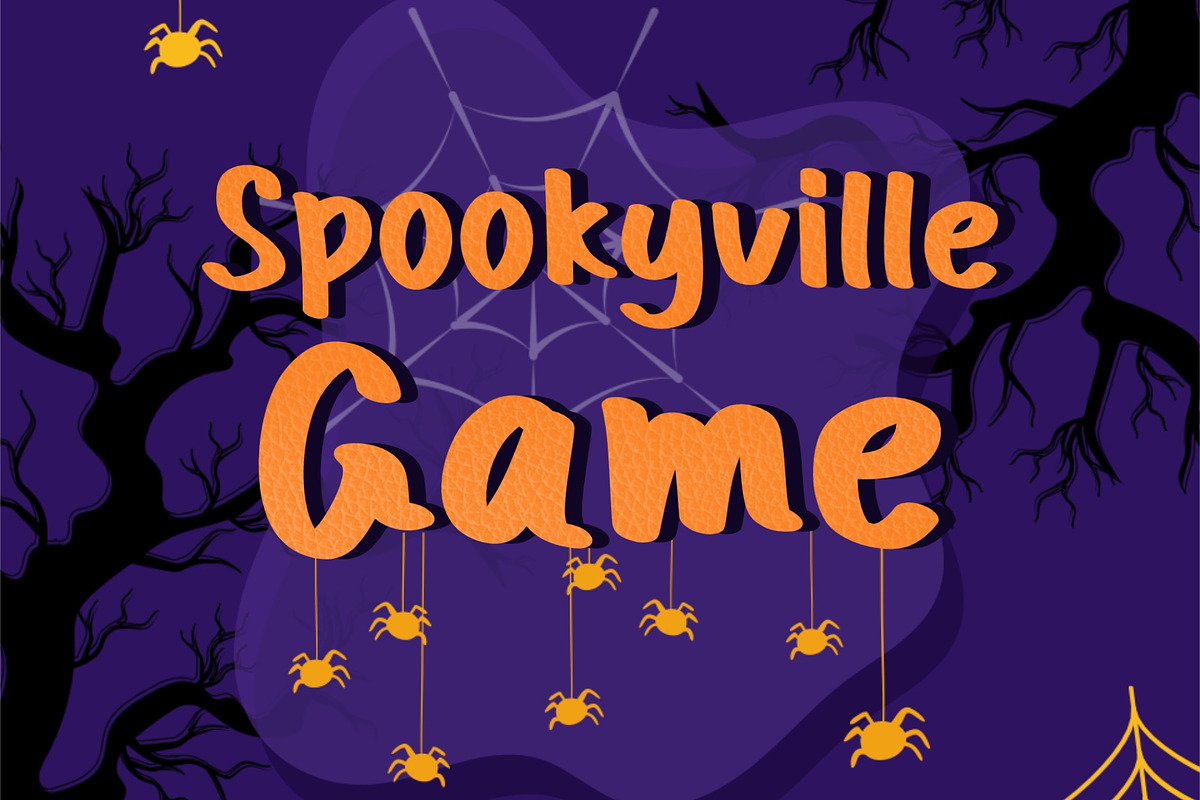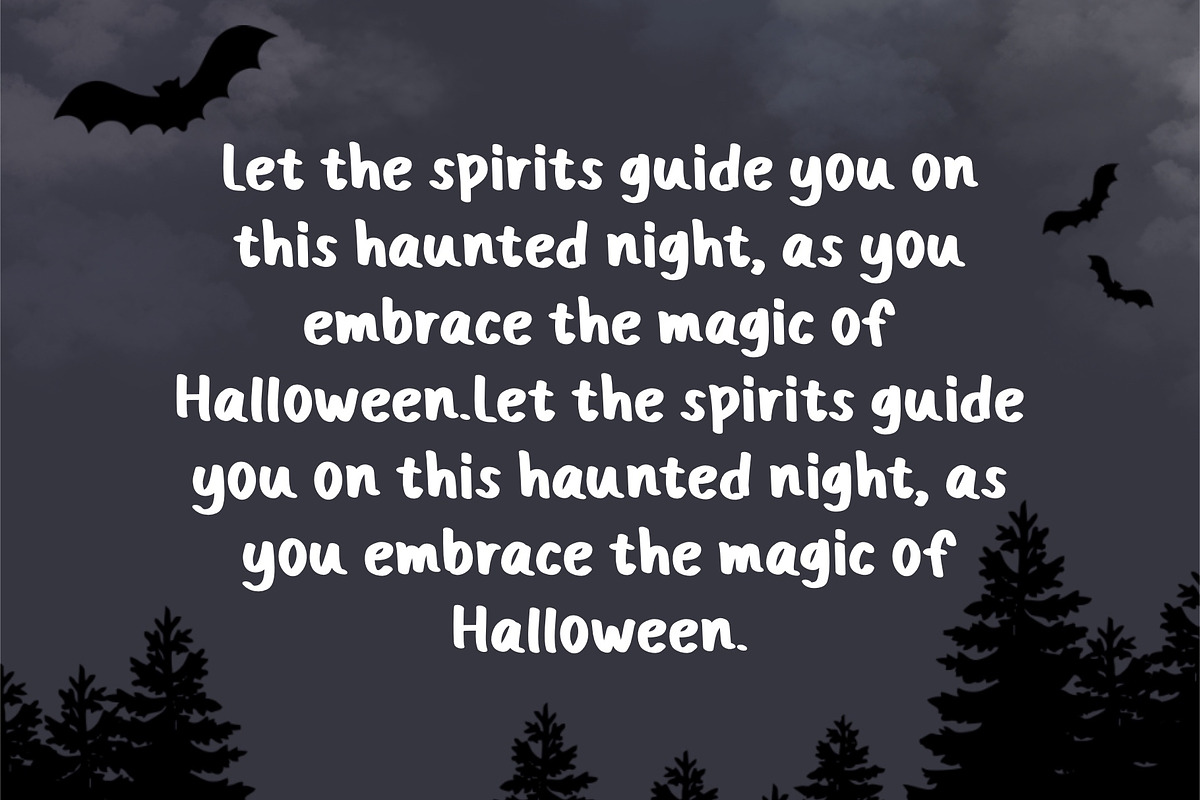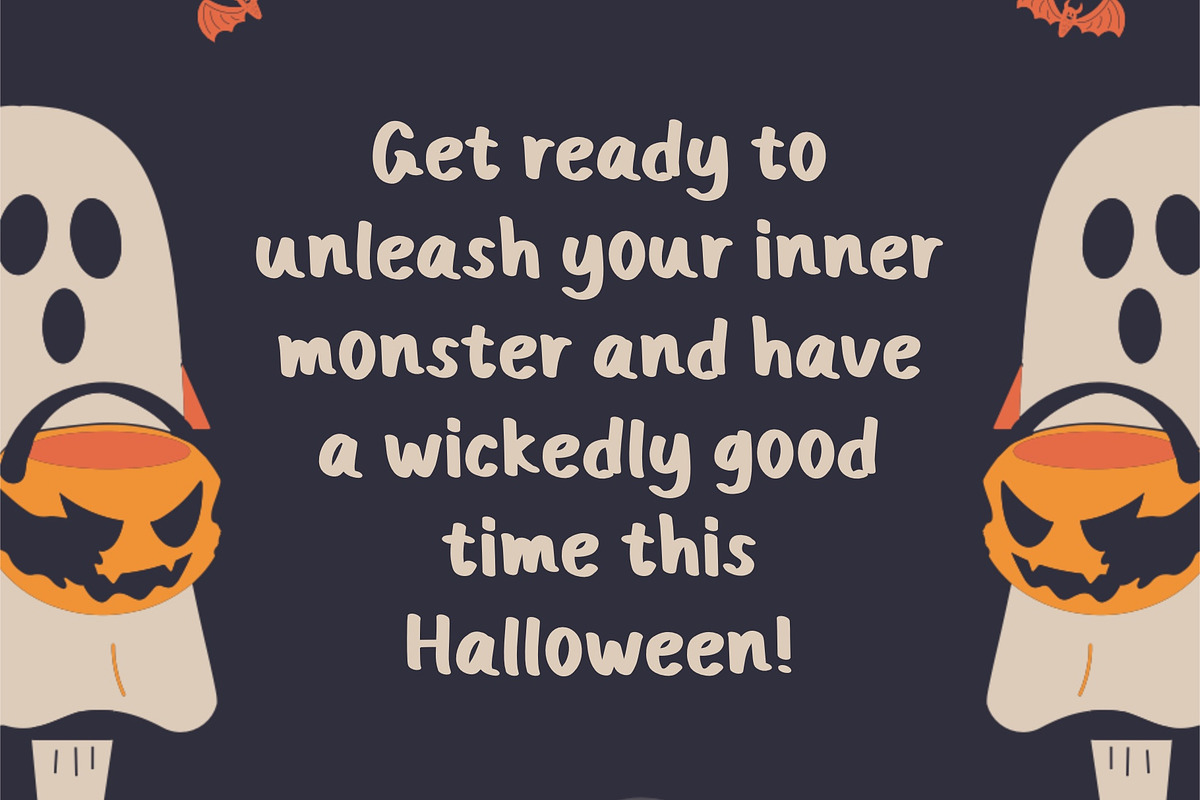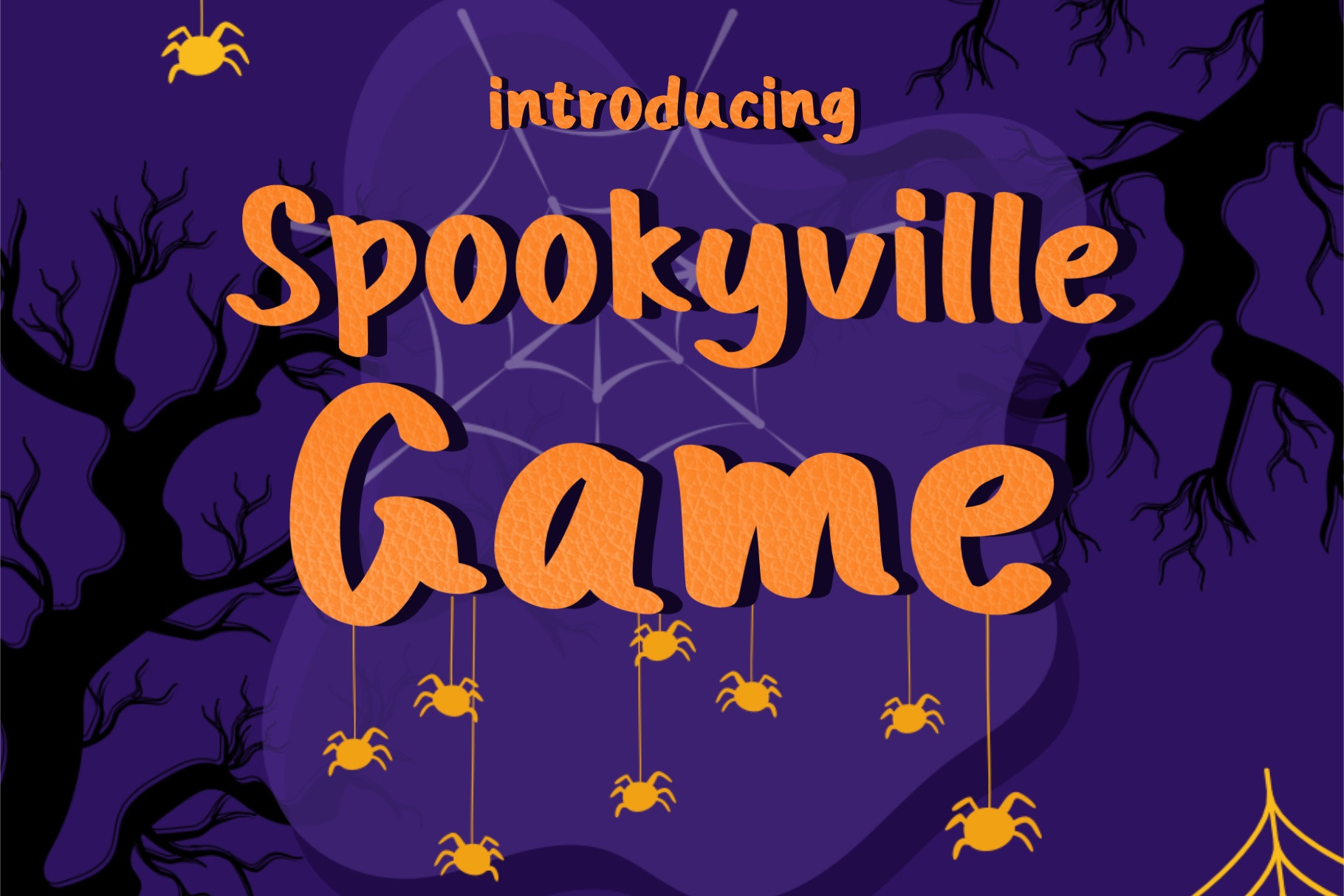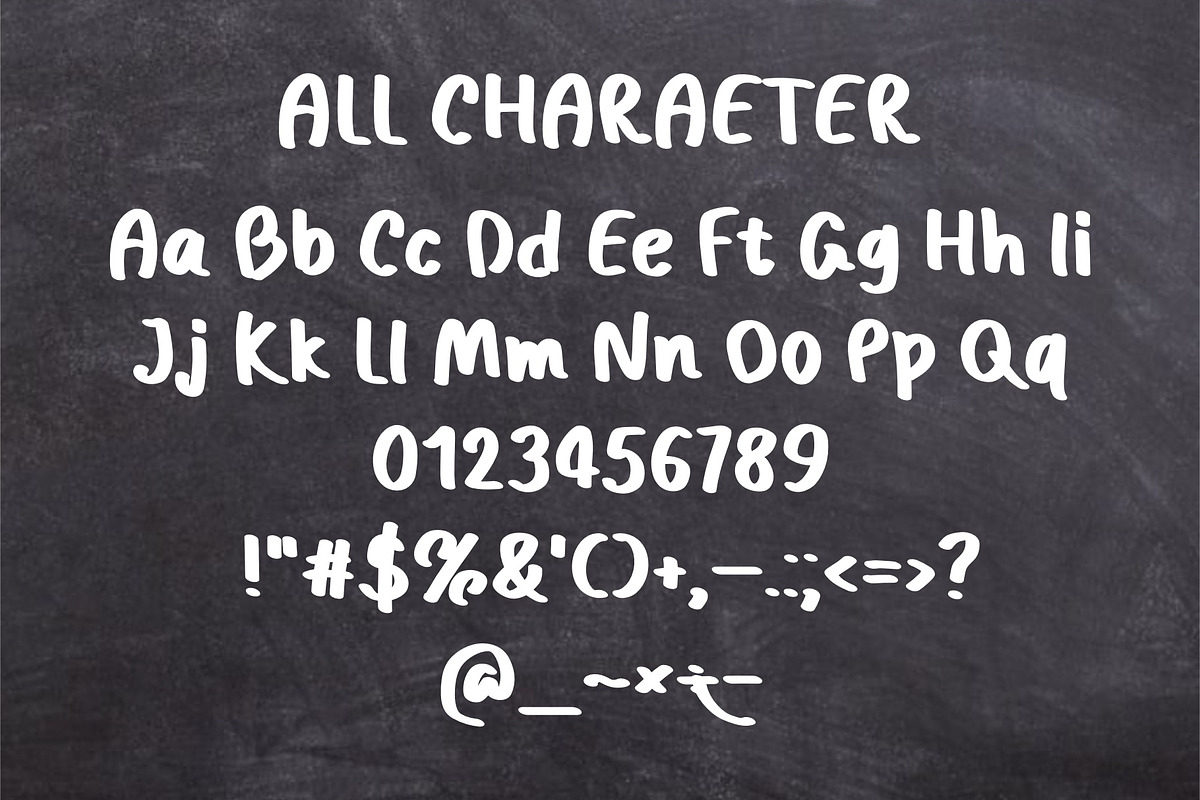
Spookyville Game Font
Step into the haunted world of Spookyville with our thrilling Spookyville Game font! Designed to capture the essence of spine-tingling adventures, this font is perfect for creating game titles, character names, and eerie captions that will immerse players in the supernatural realm. With its creepy curves, ghostly outlines, and eerie glyphs, Spookyville Game font will transport players to a world where every corner is filled with suspense and mystery. From haunted mansions to dark forests, this font will bring an extra layer of excitement to your game design. Whether you’re developing a spooky platformer, a chilling puzzle game, or a haunted RPG, Spookyville Game font is the perfect companion for your game typography needs. Get ready to give players an unforgettable gaming experience as they journey through the realms of Spookyville